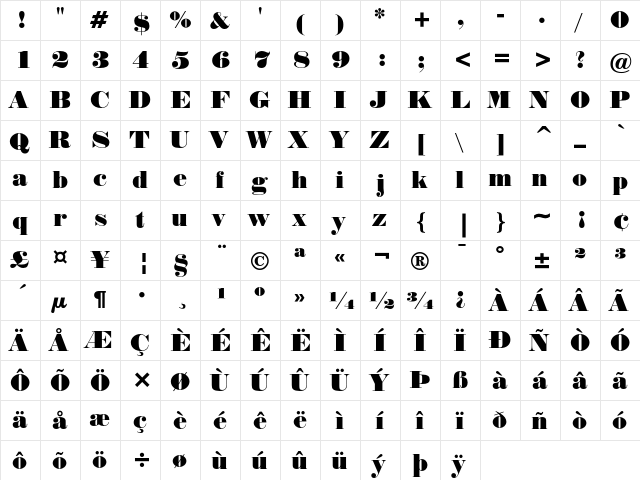
Normande Regular
Design Context for Normande Typeface
Normande offers clean, dependable letterforms without strong stylistic allegiance, making it a practical choice for designers who need flexibility.
Pro Tip: Pair Normande with a font of contrasting weight or personality to build a more expressive typographic hierarchy.